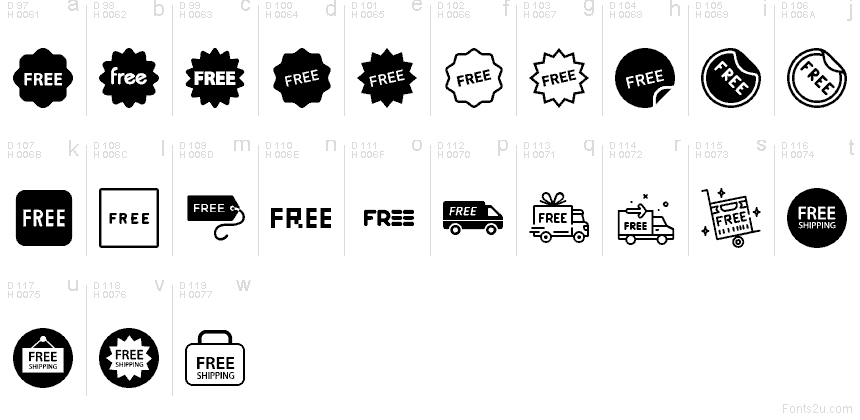
FreeTags
FreeTags font by ArFonts is a free dingbat typeface that gives you an instant toolkit of “FREE” badges, trucks, tags, and stickers for promos. Bold black outlines, punchy starbursts, and crisp circular seals make every mark feel like a ready-made stamp you can drop straight into a layout. The icons have a hand-drawn, merch-table vibe that feels friendly but still clear and legible at a glance.
Using FreeTags, you can quickly brand sale banners, newsletter headers, ecommerce hero images, social ads, packaging labels, and in-store signage without redrawing icons each time. This free font works beautifully alongside a clean sans serif—set the text small and let the FreeTags icons steal the spotlight at larger sizes.